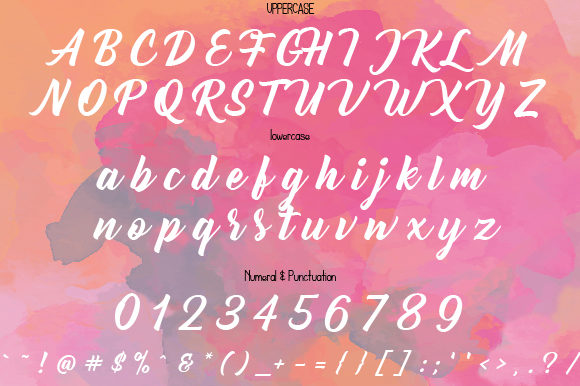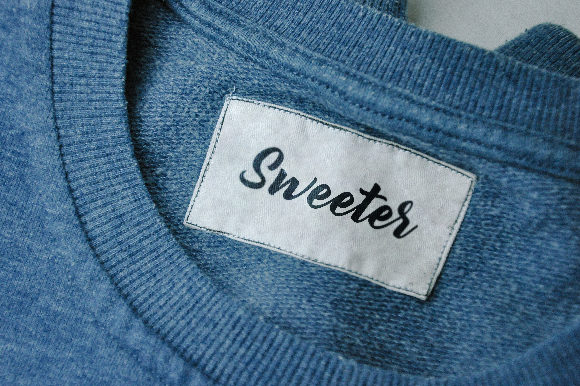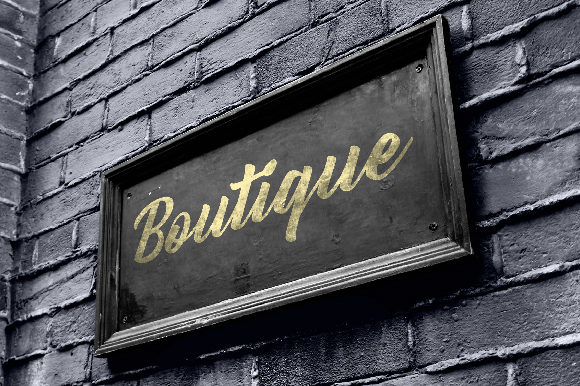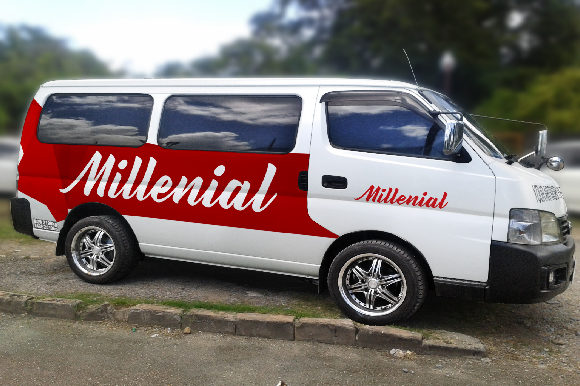
Nadia Font
About Nadia Font
The Nadia is a feminine typeface, inspired by the new modern vintage style. It’s perfect for your vintage logos, badges, shirts, labels, apparel design, etc.